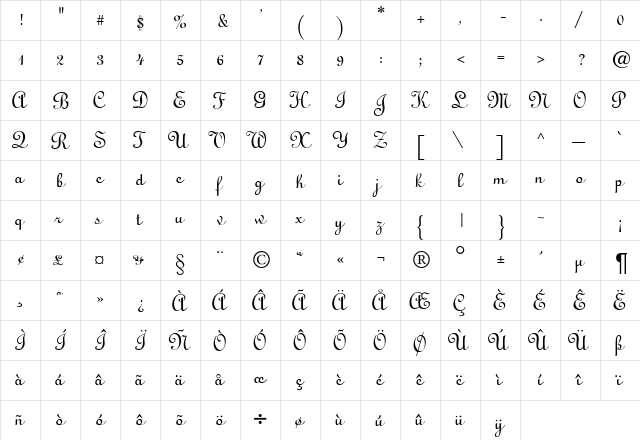
LinusDB Normal
Design Context for LinusDB Typeface
LinusDB is a composed and adaptable typeface that performs quietly and consistently across a wide range of design contexts.